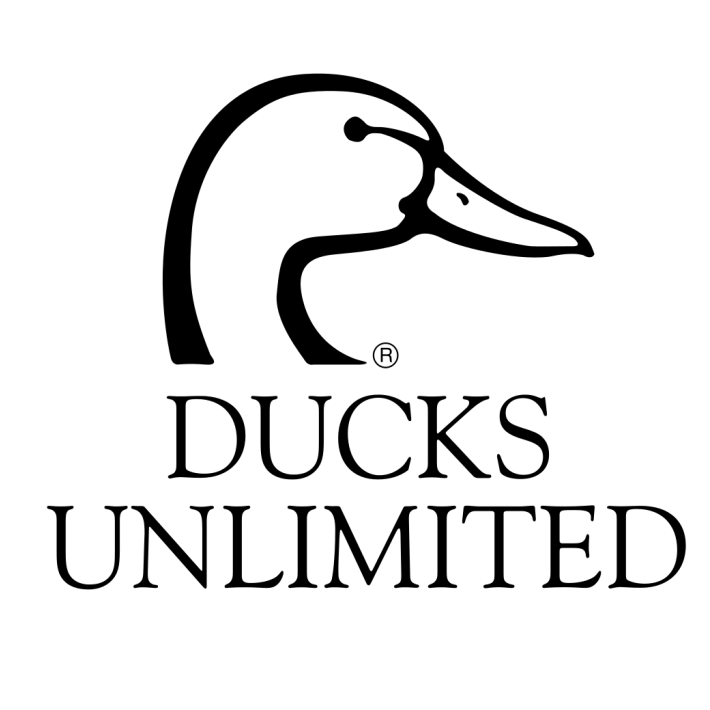
Ducks Unlimited Font
Fonts in UseDucks Unlimited (DU) is a non-profit organization dedicated to the conservation of wetlands and waterfowl habitats in North America through various initiatives and partnerships with government agencies and private organizations.
The non-profit organization's logo features the classic Goudy Regular typeface, an old-style serif font designed by Frederic W. Goudy in 1915.